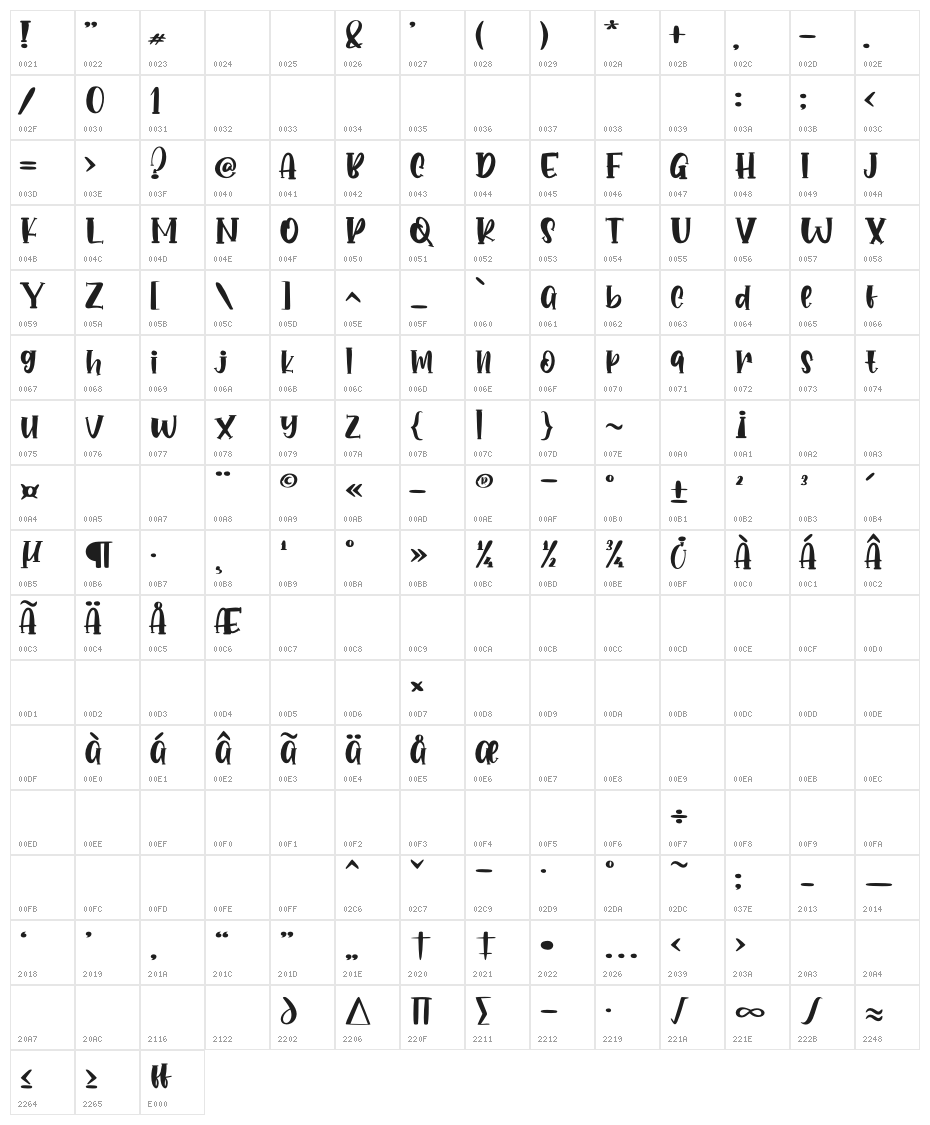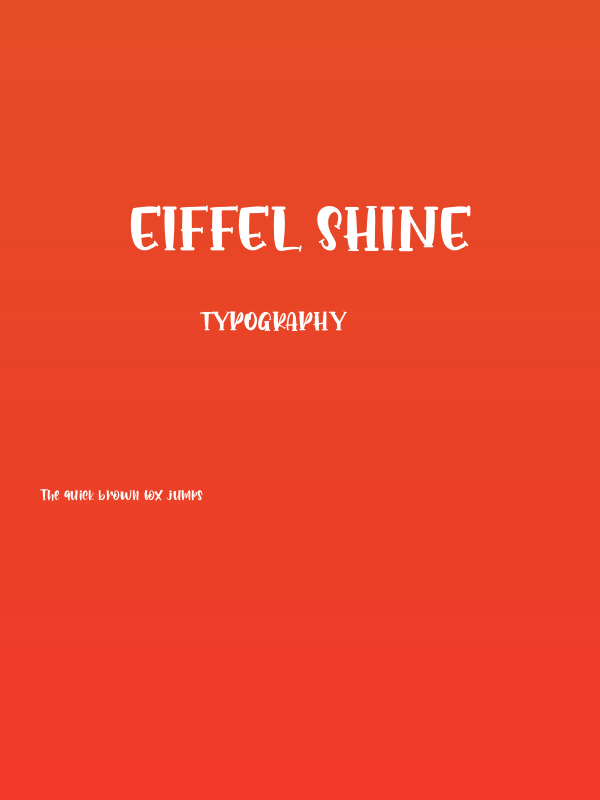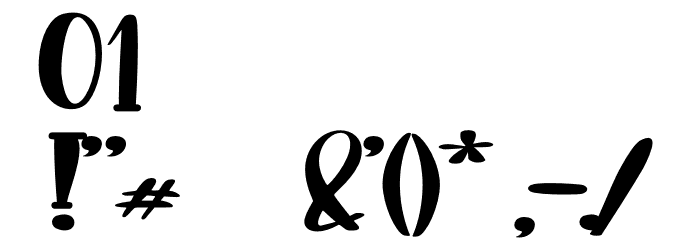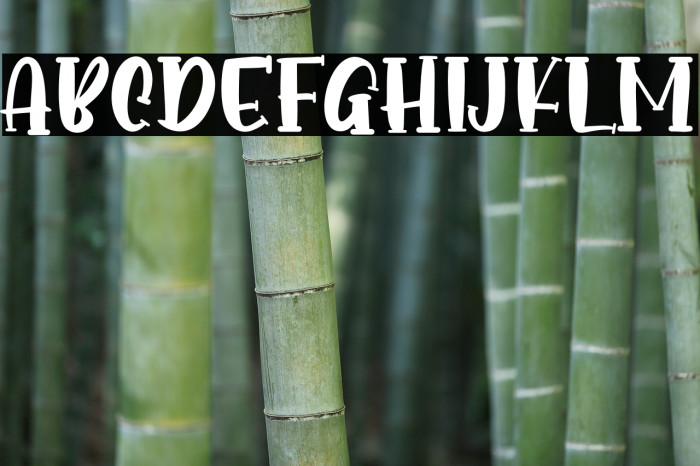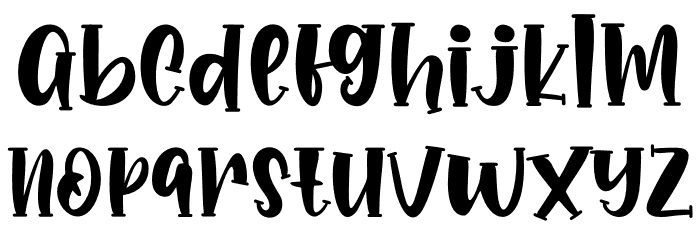
Eiffel Shine Font
Eiffel Shine Description
This font features a playful and whimsical design with a bold and expressive style. The characters have a hand-drawn appearance, with varying stroke widths that add a dynamic and lively feel. The uppercase letters are tall and slightly narrow, while the lowercase letters maintain a consistent height, creating a balanced look. The numerals and special characters follow the same playful theme, making the font suitable for creative and informal projects. The overall design is eye-catching and full of personality, perfect for adding a touch of fun to any text.
| Overall Style | Playful, Whimsical |
| Proposed Projects | Ideal for children's books, greeting cards, posters, and playful branding. |